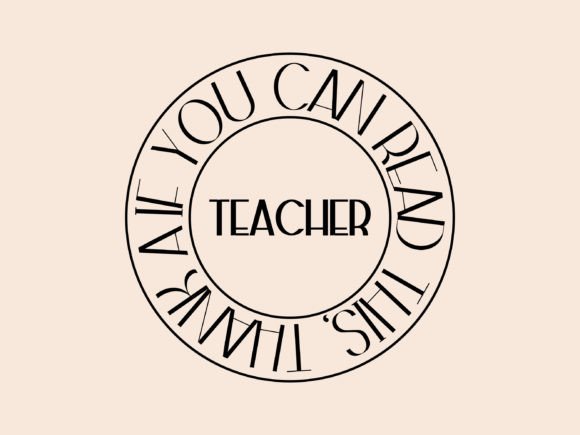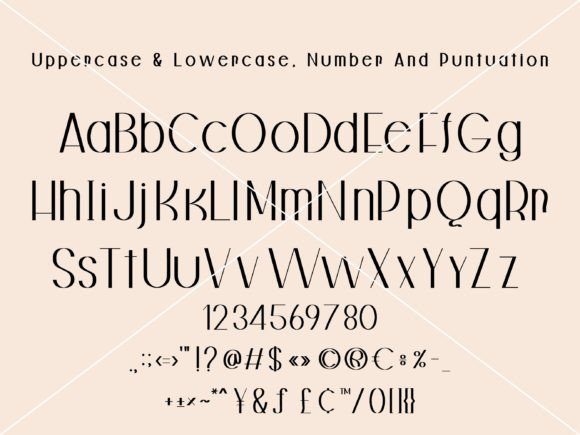
The Beauty of Handwritten Font: Elevating Design with Elegance and Simplicity
In the world of typography, fonts play a crucial role in conveying messages, expressing emotions, and creating lasting impressions. Among the numerous font styles available, Handwritten Font stands out for its unique blend of modern minimalism and timeless elegance. Designed with clarity and simplicity in mind, this clean and modern minimalist sans-serif font has become a favorite among designers and crafters alike.
Characteristics of Handwritten Font
Handwritten Font boasts sleek lines and balanced letterforms that exude a sense of sophistication and refinement. Its subtle rounded edges add a touch of warmth, preventing the font from feeling too rigid or cold. This delicate balance between modernity and approachability makes Handwritten Font an excellent choice for a wide range of applications, from headings and body text to logos and branding materials.
The Power of Minimalism
Minimalism has become a popular design trend in recent years, and for good reason. By stripping away unnecessary elements, minimalist designs can communicate complex ideas with clarity and precision. Handwritten Font embodies this minimalist ethos, using simple yet elegant lines to convey a sense of sophistication and refinement. Whether used in digital or print materials, this font is sure to make a lasting impression.
Versatility of Handwritten Font
One of the key benefits of Handwritten Font is its versatility. Its clean and modern design makes it suitable for a wide range of applications, including:
- Headings and Titles: Use Handwritten Font to create bold and eye-catching headings that grab attention and draw the reader in.
- Body Text: Its excellent legibility makes Handwritten Font an excellent choice for body text, ensuring that your message is conveyed clearly and efficiently.
- Logos and Branding: Create a lasting impression with Handwritten Font, perfect for logos, business cards, and other branding materials.
Why Designers and Crafters Love Handwritten Font
Designers and crafters appreciate fonts that are both aesthetically pleasing and functional. Handwritten Font delivers on both fronts, offering a unique combination of style, elegance, and versatility. Here are just a few reasons why:
- Ease of Use: Handwritten Font is incredibly easy to read and work with, making it a joy to use in a variety of design projects.
- Customization: With its clean and simple design, Handwritten Font provides ample opportunities for customization, allowing designers to put their own unique spin on the font.
- Cross-Platform Compatibility: Handwritten Font is optimized for use on a range of platforms, ensuring that it looks great whether used in digital or print materials.
Tips for Using Handwritten Font
To get the most out of Handwritten Font, consider the following tips:
- Experiment with Sizes: Handwritten Font looks great in a range of sizes, from large headings to smaller body text.
- Play with Colors: Try pairing Handwritten Font with different colors to create visual interest and add depth to your design.
- Mix and Match: Combine Handwritten Font with other fonts to create a unique and eye-catching typography scheme.
| Font Name | Handwritten Font |
| Author | MistyDesigns |
Handwritten Font is a versatile and elegant font that offers a unique combination of modern minimalism and timeless sophistication. Its clean and simple design makes it perfect for a wide range of applications, from headings and body text to logos and branding materials. Whether you’re a designer, crafter, or simply someone who appreciates great typography, Handwritten Font is sure to become a favorite in your toolkit.